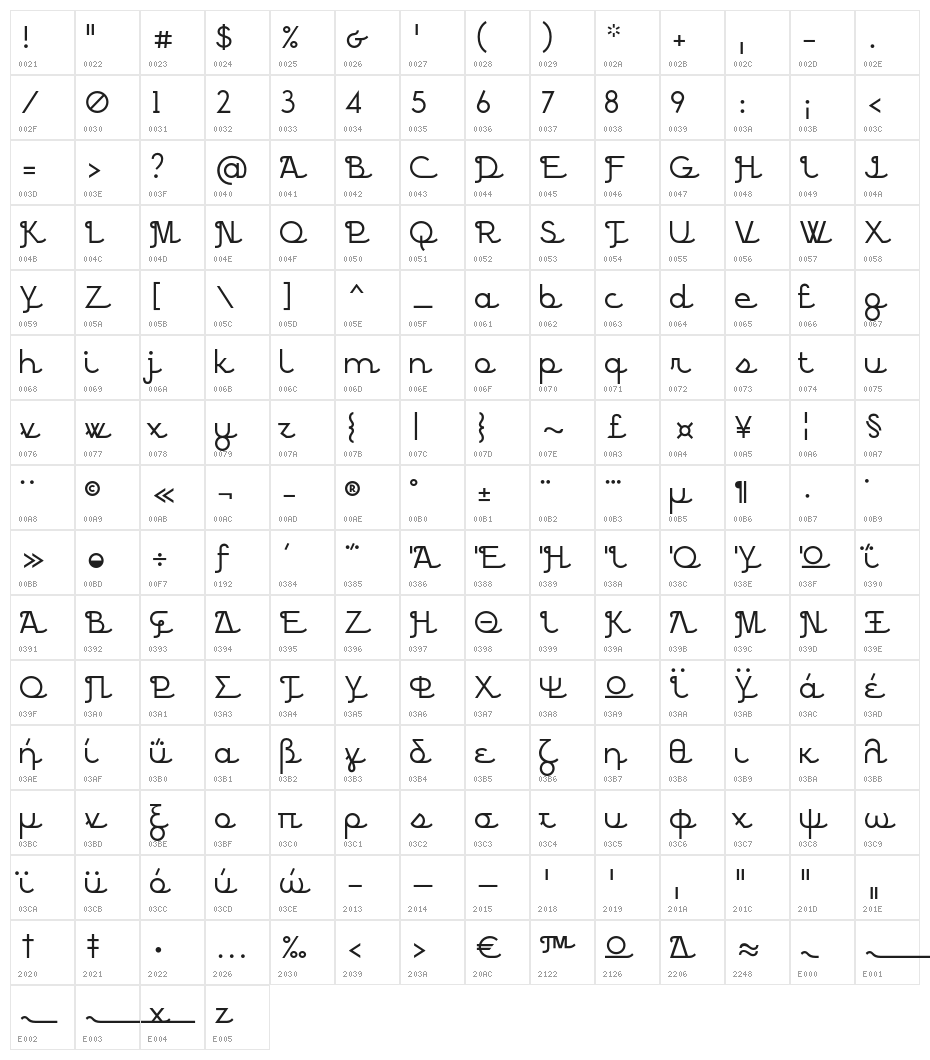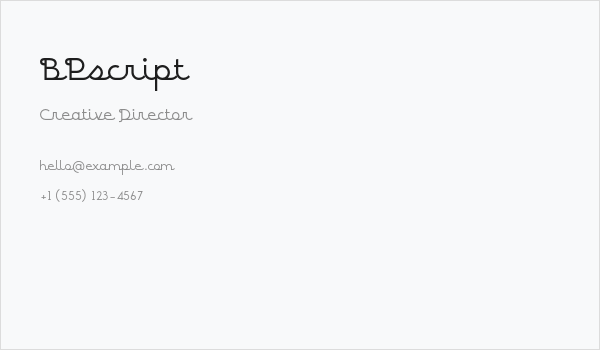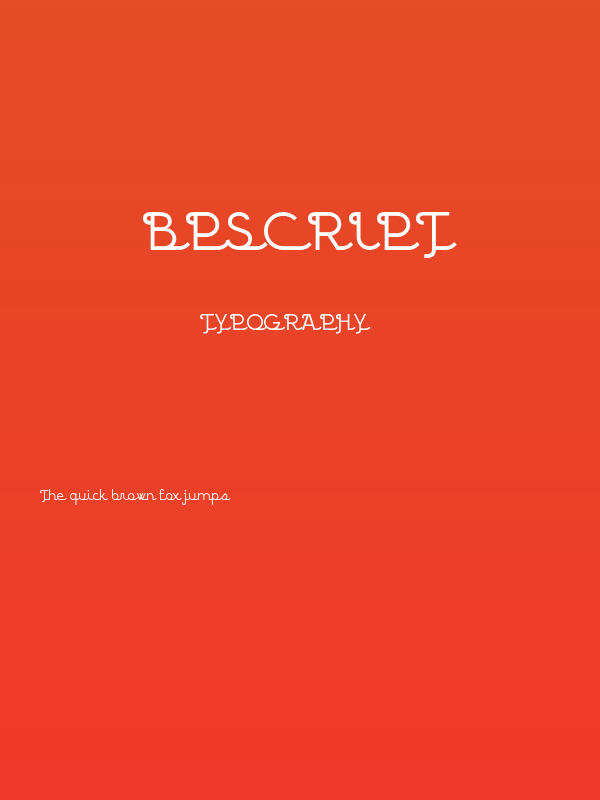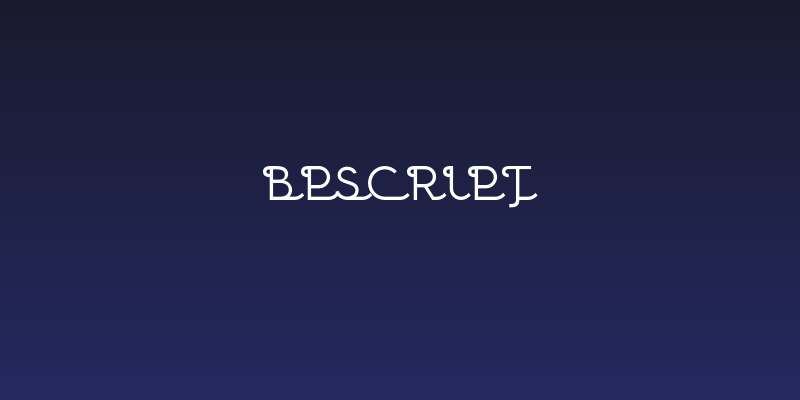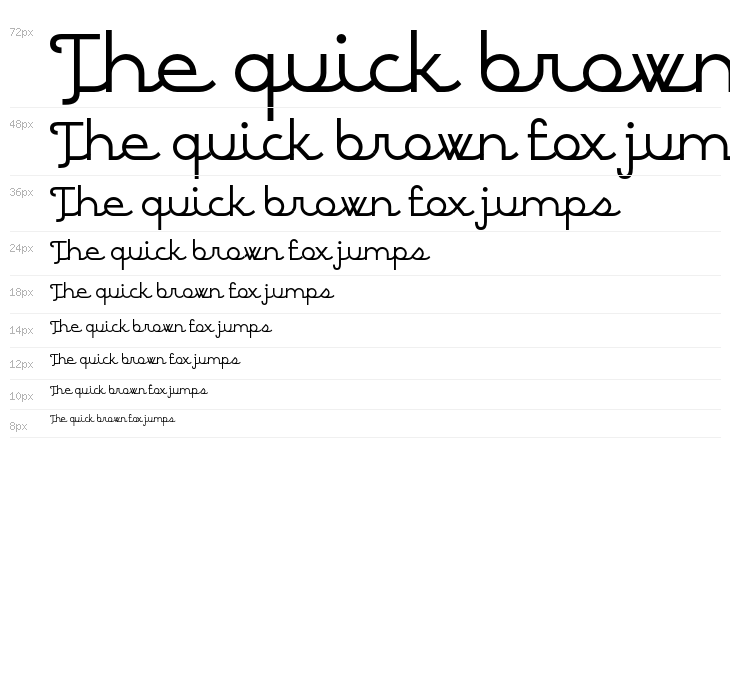
BPscript Font
BPscript Description
This font features a unique blend of modern and retro elements, characterized by its rounded, flowing lines and distinctive loops. The uppercase letters exhibit a playful yet structured form, while the lowercase letters maintain a consistent, smooth curvature. Numbers and special characters are crafted with the same attention to detail, ensuring a cohesive look across all glyphs. The font's design is both approachable and stylish, making it suitable for a variety of creative applications.
| Proposed Projects | Ideal for branding, packaging, and creative projects that require a touch of modern elegance and playfulness. |